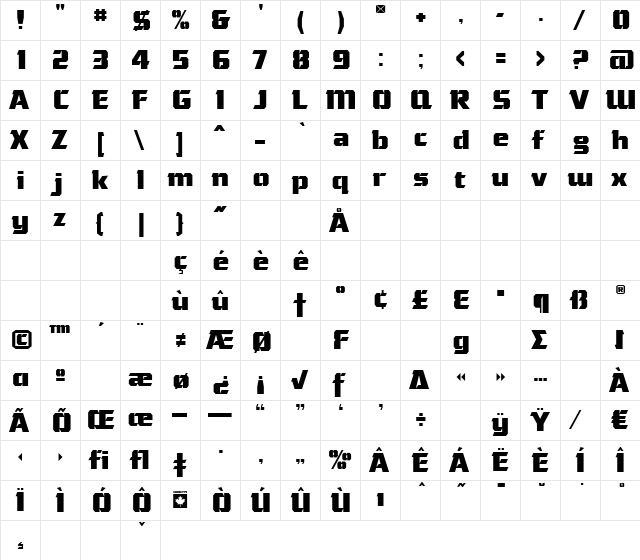
Gamer Bold
Design Context for Gamer Typeface
Gamer is a composed and adaptable typeface that performs quietly and consistently across a wide range of design contexts. Its bold stroke weight gives it real presence on the page.